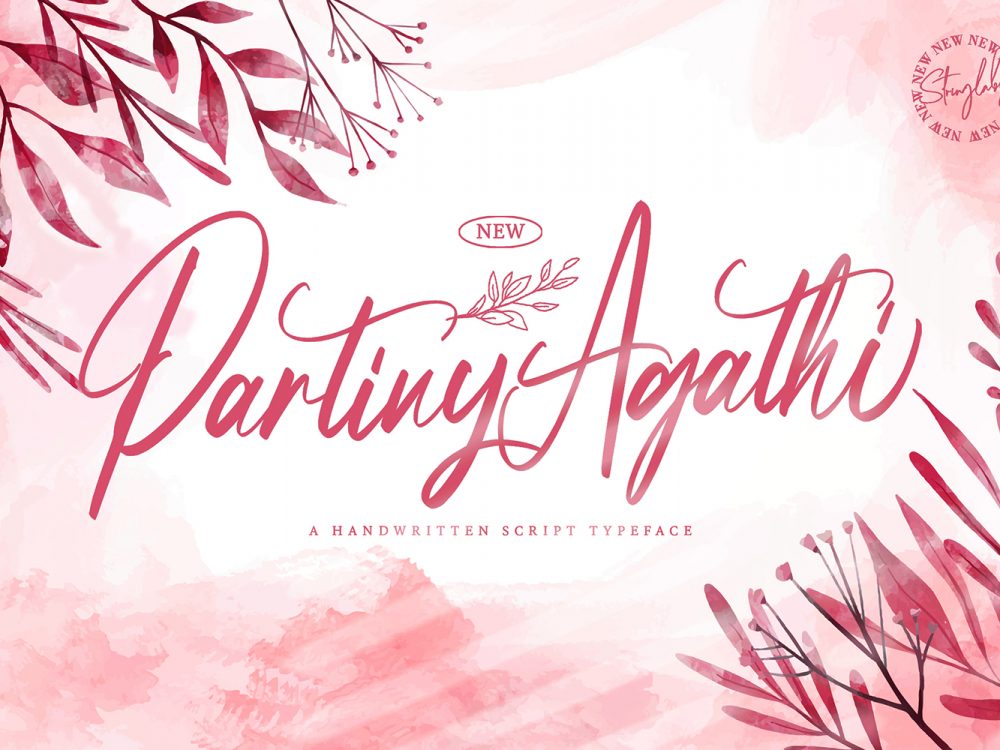
Partiny Agathi Free Font
Partiny Agathi Free Font is an interesting handwritten font that simulates writing with a brush. This font features elegant curves and is perfect for a variety of design projects such as posters, postcards, flyers, prints, and more. If you wish to access more features and use them for commercial work please buy the full version.